The basic idea of this type family was to keep the "ductus" of the fraktur calligraphy only. And to adapt it to draw a sans serif typography which still keep the magic rhythm and colour of the original letters.
Oregon Highlights is a bold and nostalgic display with clear lines, which makes it awesome in the headlinesFont is an open type with clean shapes and precise kerning. It includes ligatures encoded by the PUA.
Chaletliness is a script brush font that has its own uniqueness and characteristics from brush fonts, because it is handwritten manually. This font is carefully crafted with a modern touch. This font looks elegant, luxurious, natural and rustic. Chaletliness would perfect for photography, watermark, social media posts, advertisements, logos & branding, invitation, product designs, label, stationery, wedding designs, product packaging, special events or anything that need handwriting taste.
Bethany Elingston is a serif font with contrasting characters inspired by old-style serifs and condensed serifs. Has dozens of great Alternatives and Binders to combine in creating Labels, signage, titles, logos and many other creative projects.
Schabernack One is a handwritten brushfont. If you are looking for a funky, doodle style fontface you have found it!
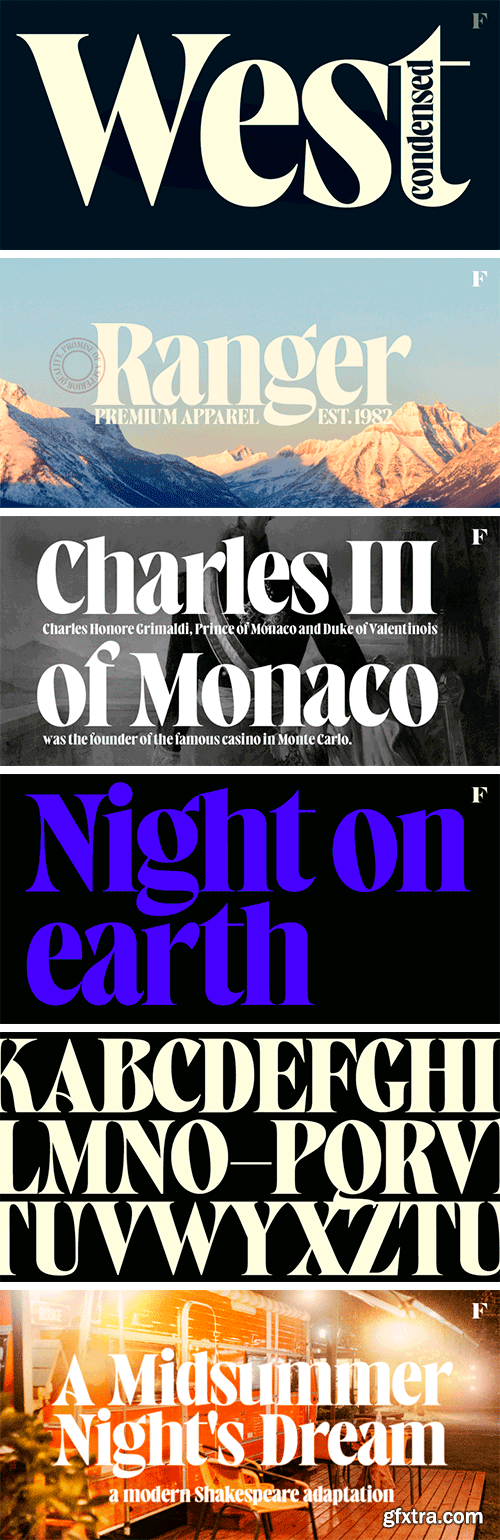
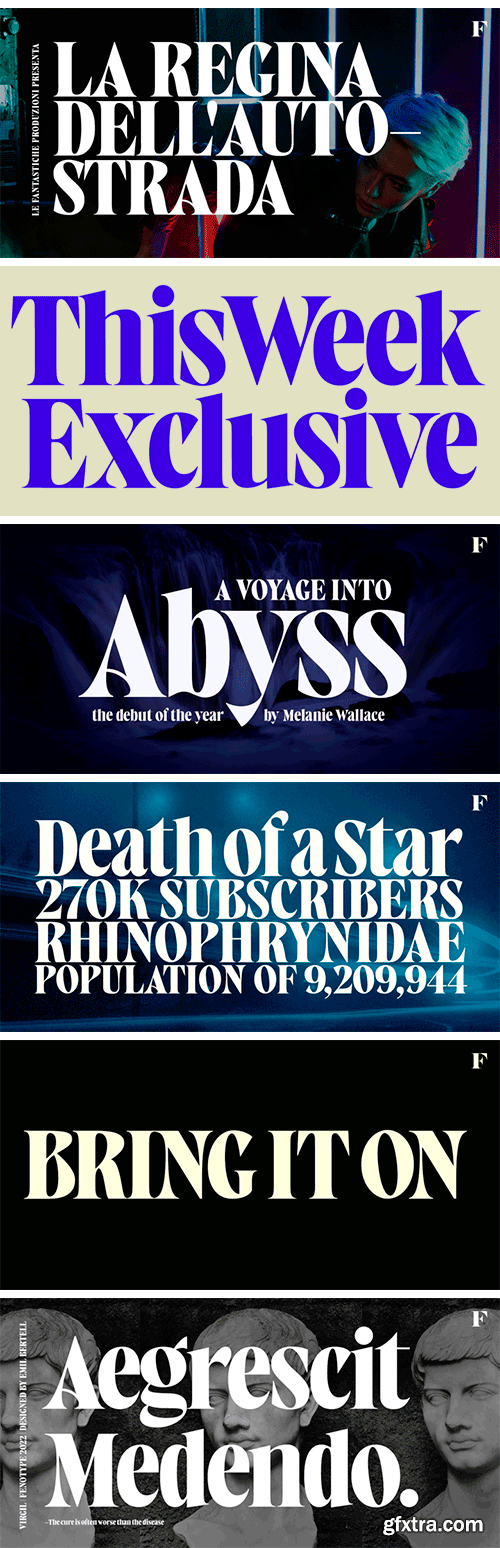
West West is a high-contrast condensed display serif. West West has extra large x-height making it suitable for efficient choice for distinguishable display use such as headlines, packaging, magazines, posters and advertising, among any other. In large sizes, you can also try tighter tracking for maximum impact. With certain of Art Nouveau shapes and massive contrast West West is a great choice anywhere you need a stylish and fashionable touch.
Marylebone is a font duo inspired by its namesake neighborhood, located in central London. Marylebone was designed to compose short text for advertisements, blackboards and shop windows in coffee shops, small bookstores, flower shops and local shops. The set is made up of a hand made brush script, composed of 519 characters including ligatures, initials and terminals; as well as a very clean, geometric unicase sans serif with some alternates and ligatures that can double as monograms, it also includes a hand-drawn floral dingbat set. Marylebone allows you to design beautiful compositions for packaging, advertising, quotes, wall art, branding, photography overlays, magazines, motion graphics, scrapbooking, planners, window art, tags, tote bags and much more, thanks to its irregular appearance that gives a unique personality to your design projects.
Introducing Thrope the irregular retro display font family heavy influence by motter ombra typeface, geometric basic shape, and 60s to 70s pop culture. Thrope typeface includes 3 font family (regular, bold,& heavy) it comes with stylistic alternates 01-04 & ligatures.
Chessnota is a font suitable for the design of chess schemes. It includes original graphic images of chess pieces as well as checkers. Smaller pieces are placed at the level of the text string in order to replace letters in chess notation. It can be used for printing of chess magazines, books, in any design of schemes on websites.
Flysito Font
Flysito is a modern script font with gorgeous brush style and fun characters. This font is perfect for any design needs such as badges, logos, posters, branding, packaging, signage, book covers and more.
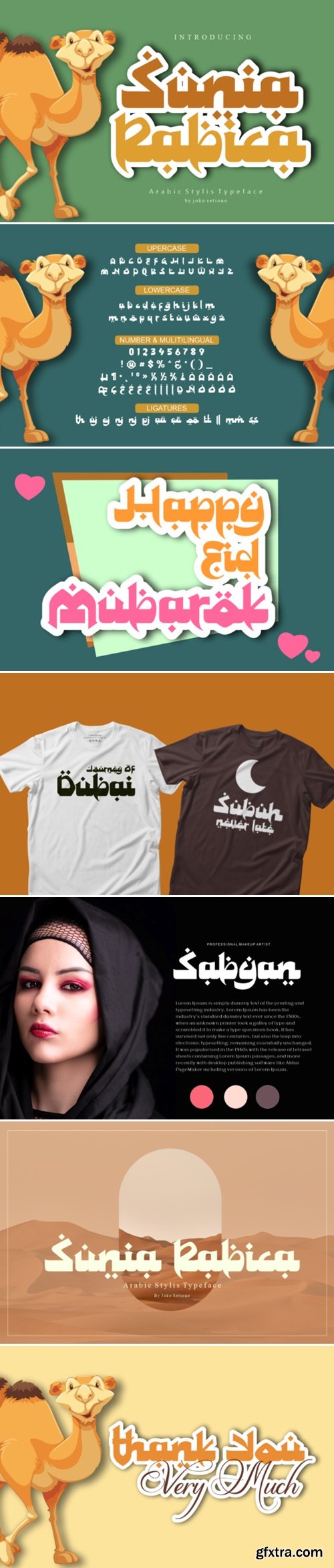
Sunia Rabica Font
Sunia Rabica is a cool looking and incredibly unique display font, inspired by the arabic art. It is defined by smooth curves and is perfect for fashion branding or editorial designs. Add it confidently to your projects, and you will love the results.
De Tooreit Font
De Tooreit is a modern and cool sans serif font. This font is perfect for branding and logo designs, magazine designs, headlines, posters, packaging, cards or wedding invitations.
Aestic Clasic Font
Aesthic classic is a vintage and distinct display font, featuring an old victorian style. It was designed with smooth curves, adding a gorgeous impression with unique characteristics.
Aullya Gedabrush Font
Aullya Gedabrus is a display font based on brush strokes. The thick and solid strokes give a strong, and tough impression, besides that it also feels beautiful. Those who need a clear, strong, tough impression, should use this font for their design.
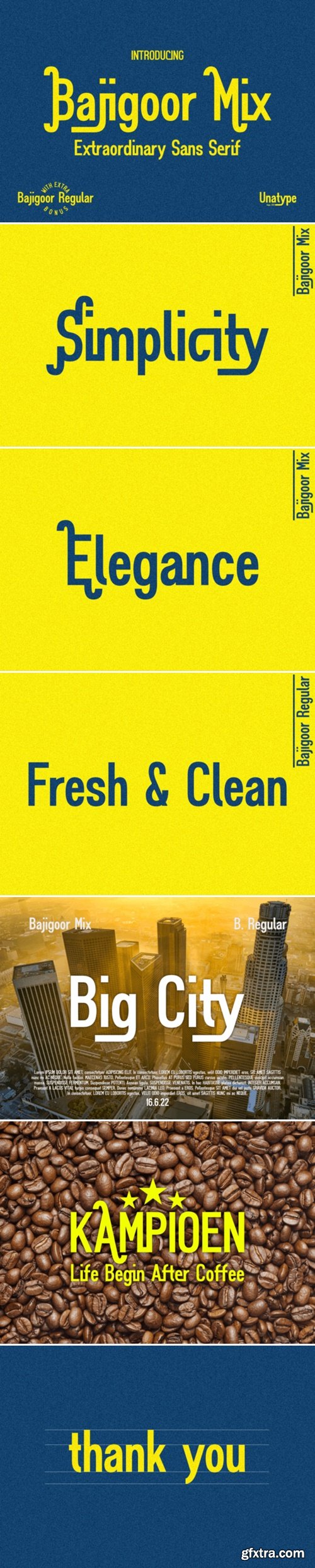
Bajigoor Mix Duo Font
Bajigoor Mix Duo is a modern and extraordinary sans serif font. This font is perfectly suited for traditional media and the web. Great for crafters and graphic artists alike. Bajigoor Mix and Bajigoor Regular are great for creative projects, be it inspirational wall posters, logo type, or for communicating your brand. This font is PUA encoded which means you can access all of the amazing glyphs and ligatures with ease!